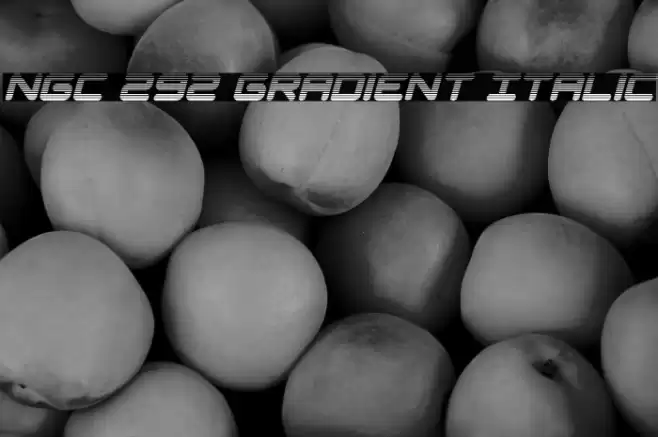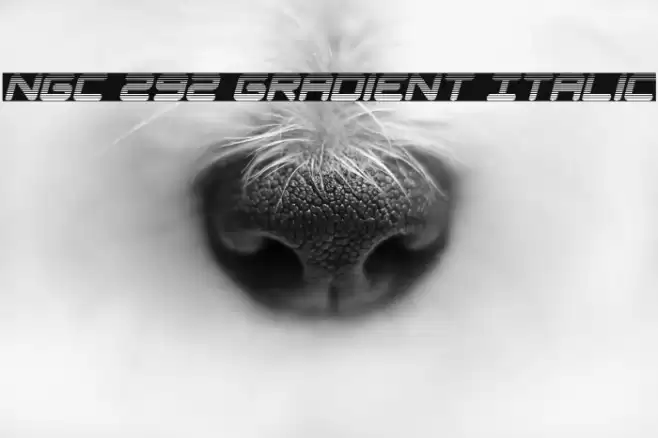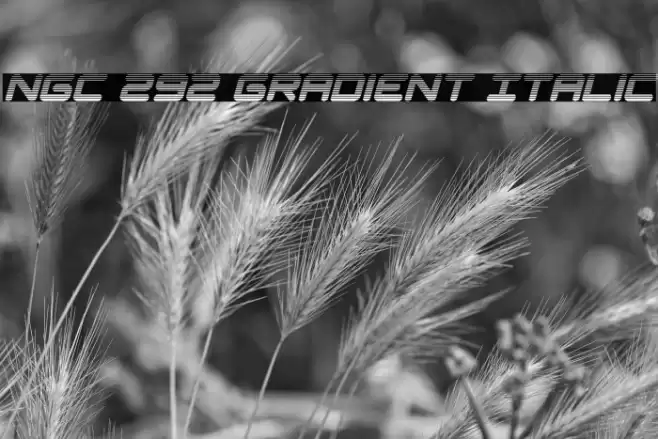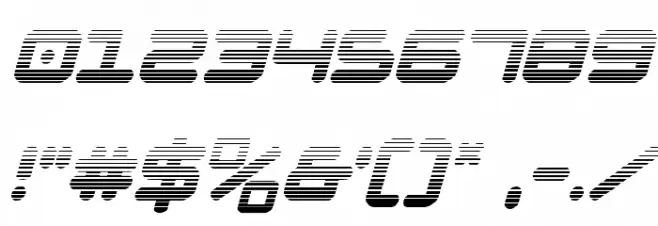
NGC 292 Gradient Italic Font
NGC 292 Gradient Italic Description
This font features a modern, dynamic design with a distinct italic slant, giving it a sense of motion and speed. The characters are composed of horizontal lines that create a gradient effect, adding depth and a futuristic feel. The uppercase and lowercase letters maintain a consistent style, with sharp angles and clean lines. Numbers and special characters are designed to match the overall aesthetic, ensuring uniformity across all glyphs. This font is ideal for projects that require a bold, contemporary look with a touch of technological flair.
A modern italic font with a gradient line effect, exuding speed and futurism from Uncategorized fonts.
- Proposed Projects: Ideal for tech branding, sports team logos, futuristic posters, and digital media.